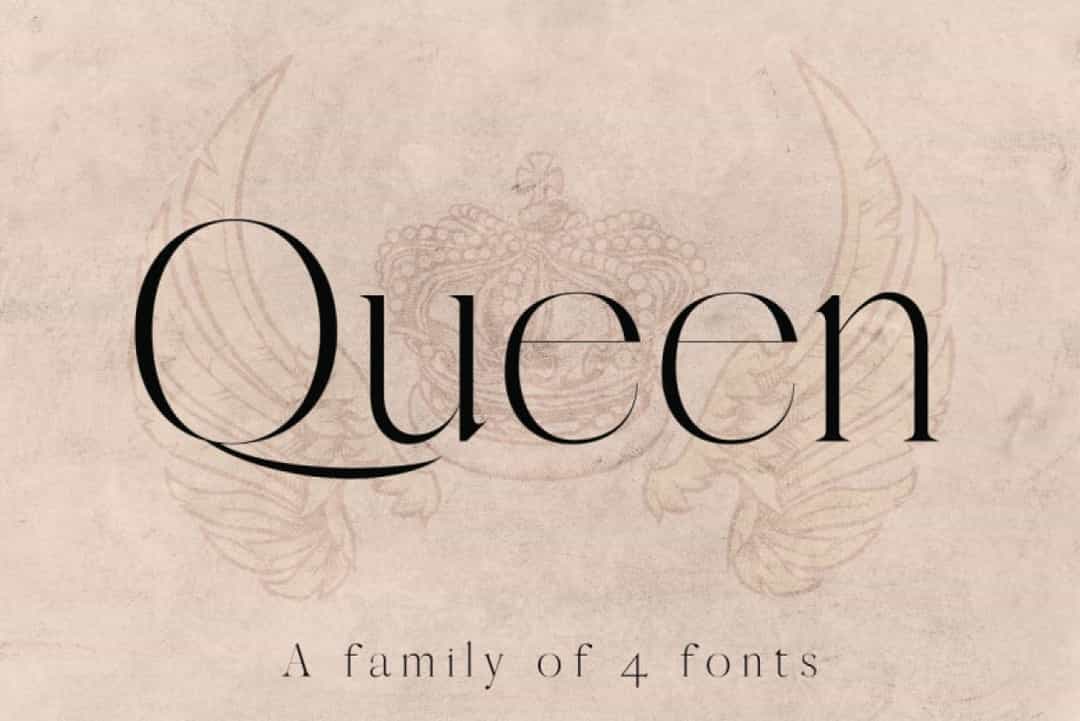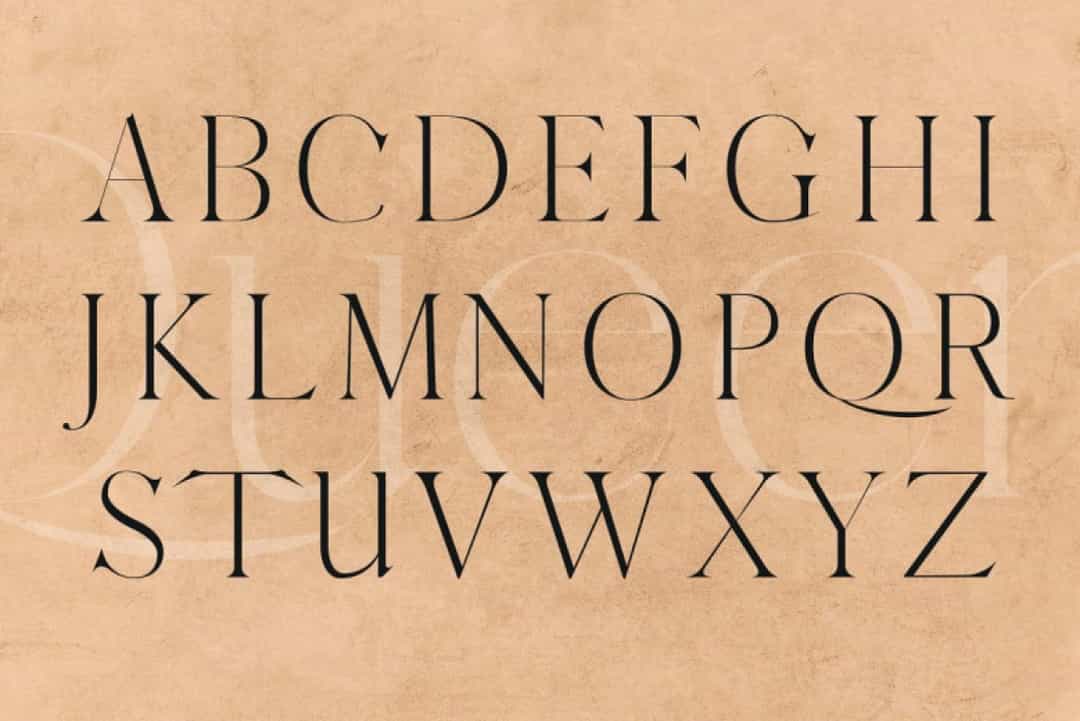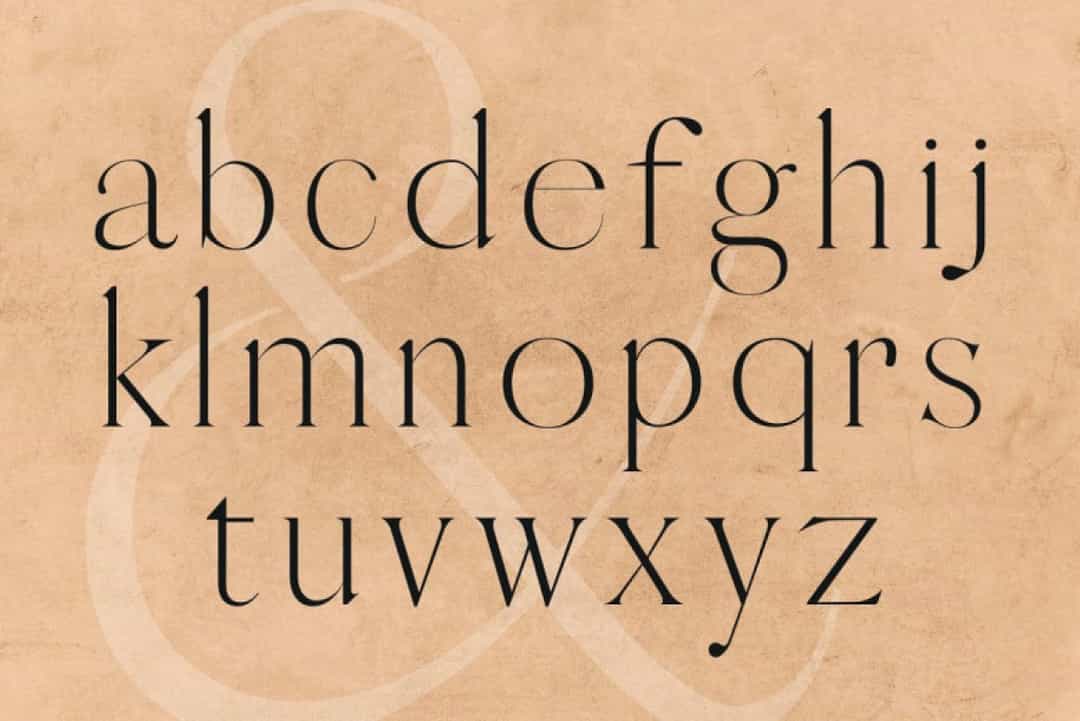
Queen is a versatile serif font designed with modern elegance in mind, suitable for creating mastheads, wordmarks, pull quotes and monograms with masculine or feminine qualities. Available in regular weight, semi bold bold and black.